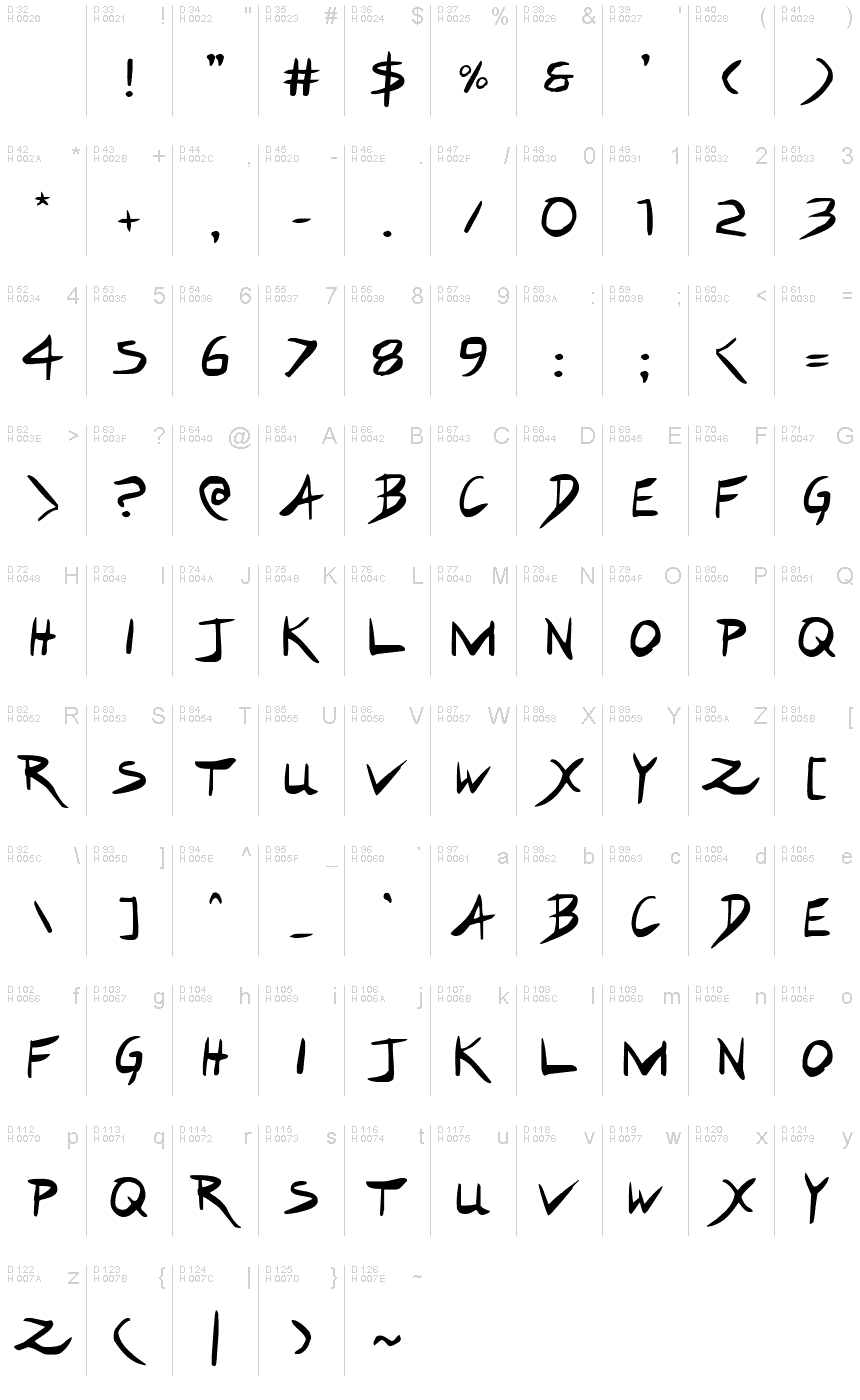
Hakturus Regular
Hakturus, a captivating brush font created by Iconian Fonts, exudes an artistic flair and contemporary appeal. Its semi-bold weight adds a touch of boldness to any design project, while the semi-expanded width provides breathing space and enhances readability. Perfect for diverse creative endeavors, Hakturus is well-suited for trendy logo designs, eye-catching packaging labels, expressive social media graphics, and dynamic website headers. With its distinctive brush style strokes and balanced proportions, this font injects vibrancy into advertising campaigns, fashion publications, modern art exhibitions, and more. Let Hakturus unleash your imagination with its versatile charm.